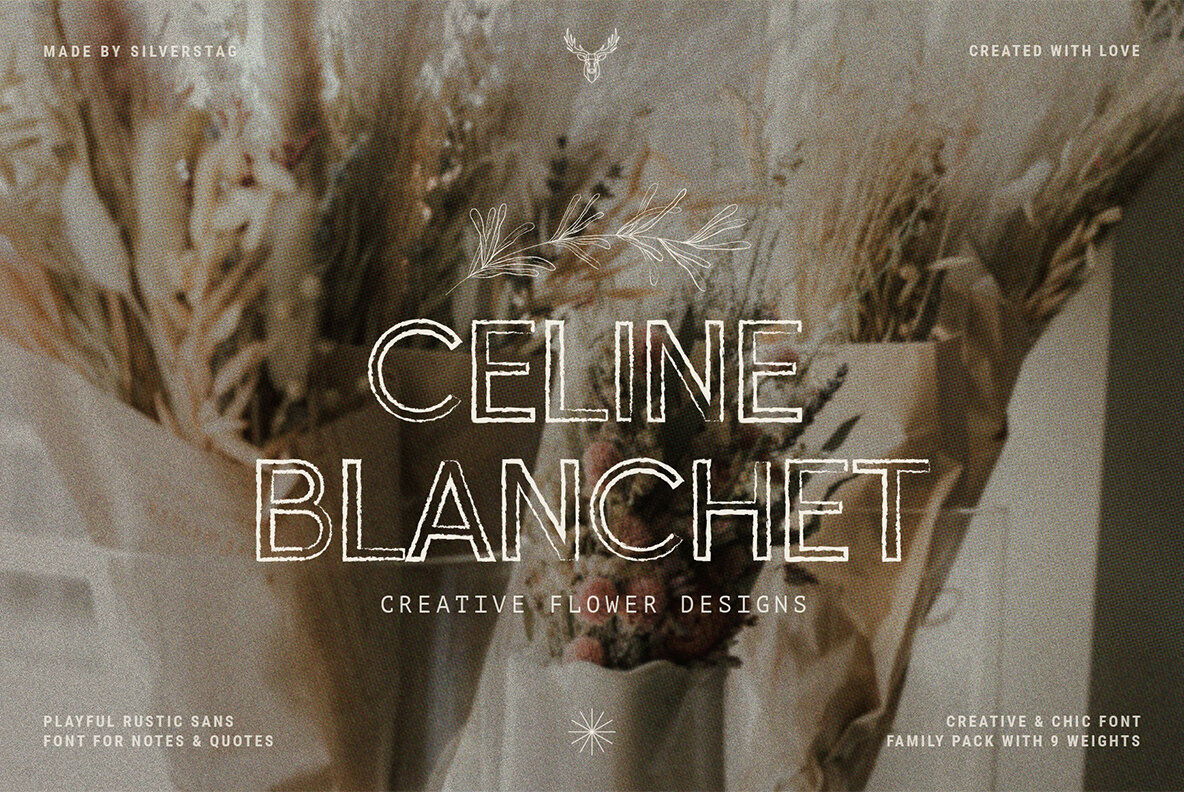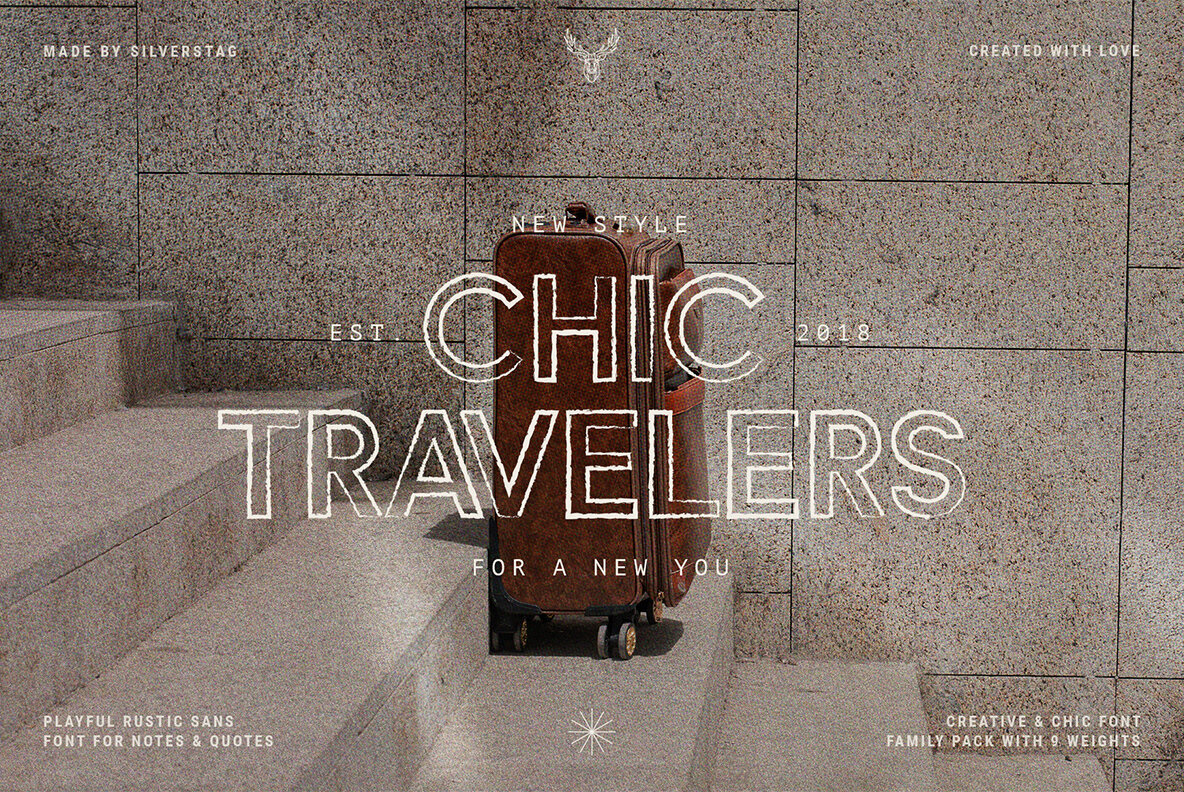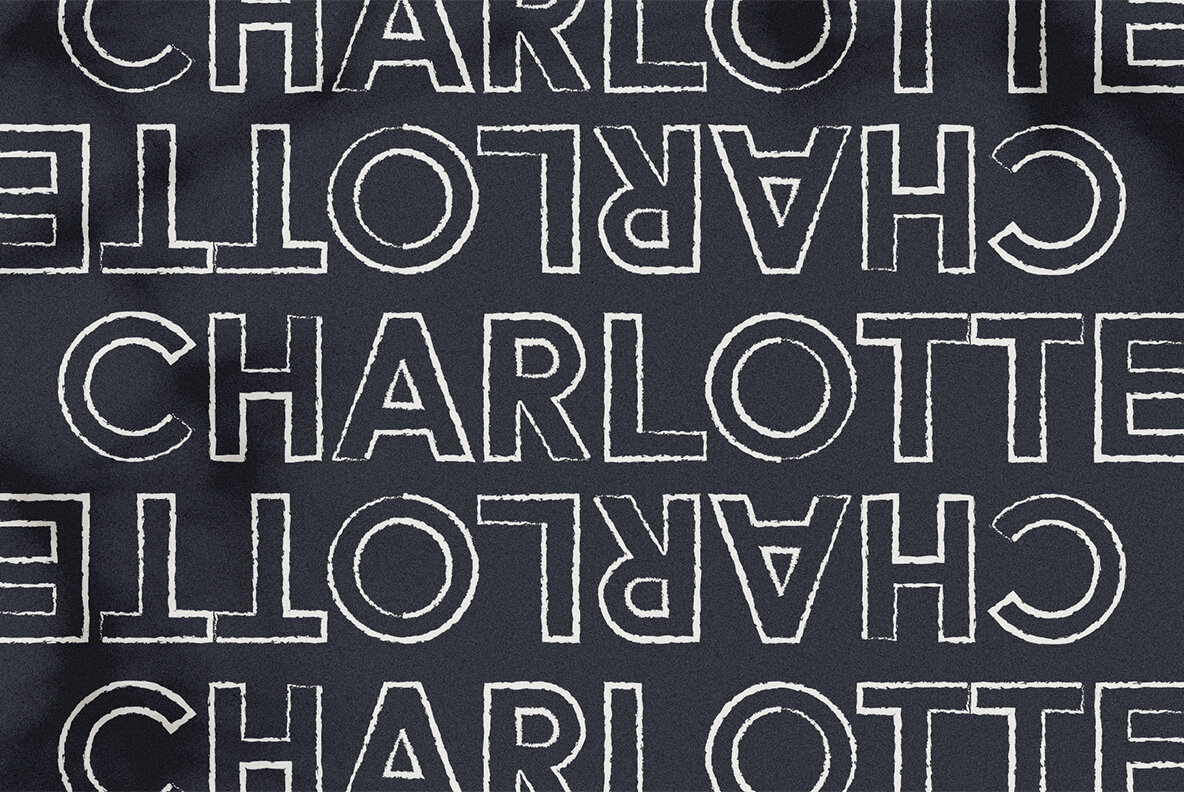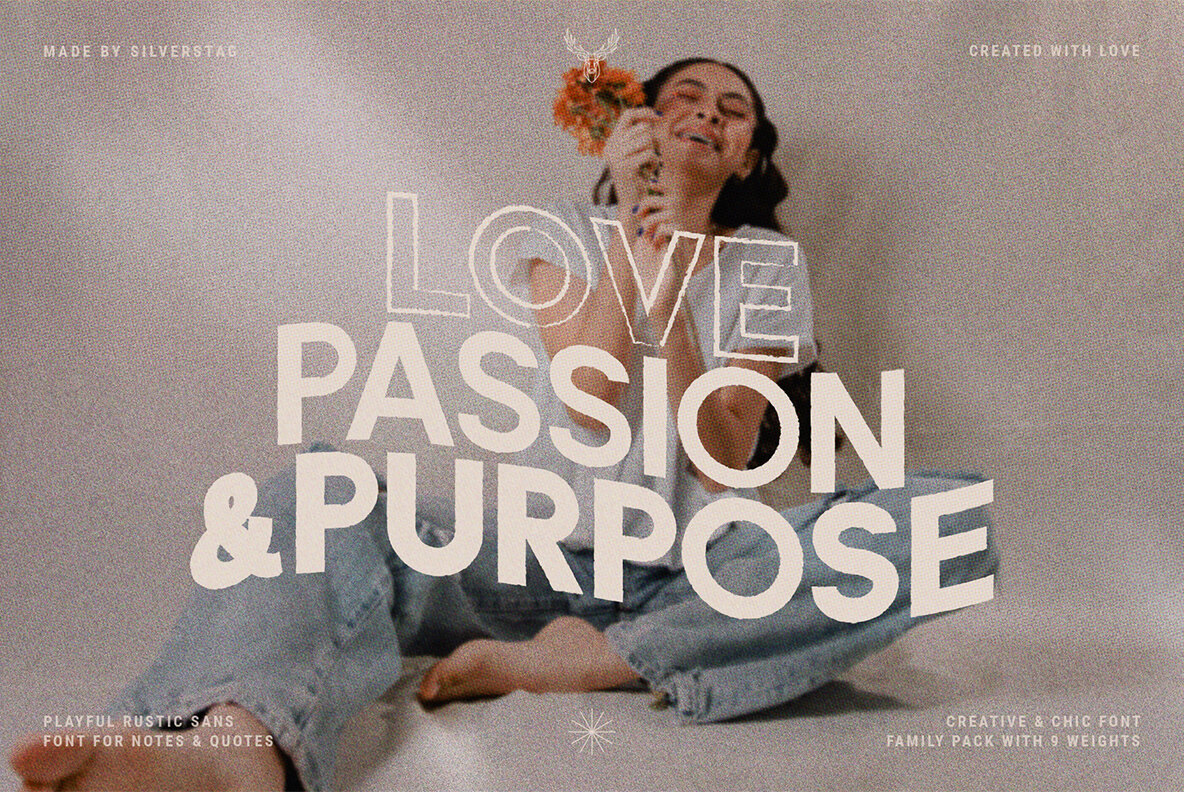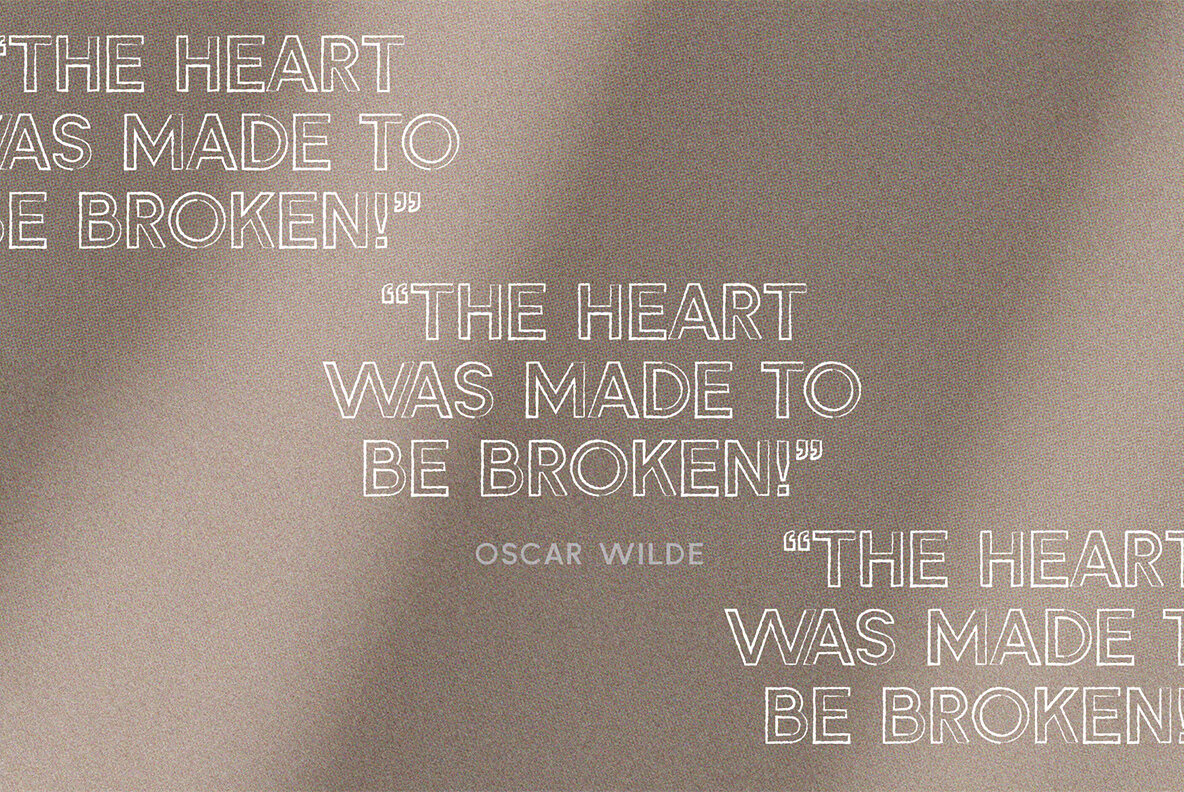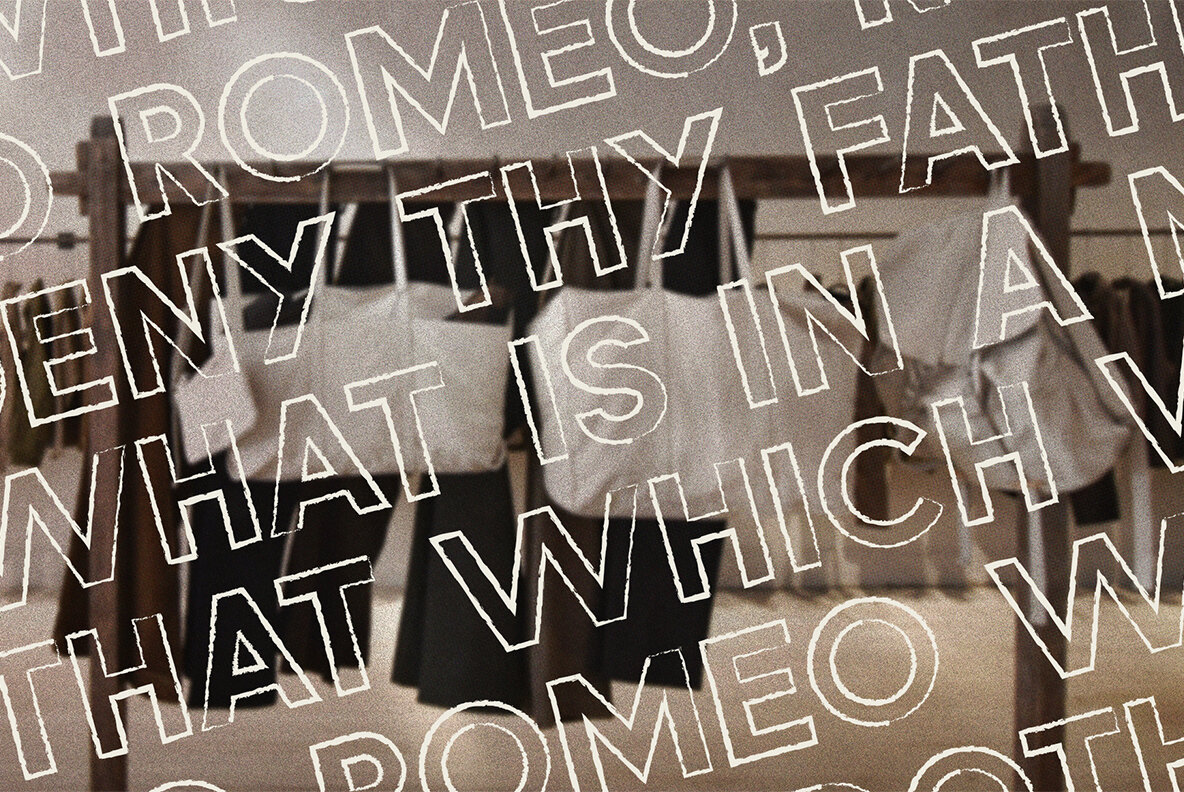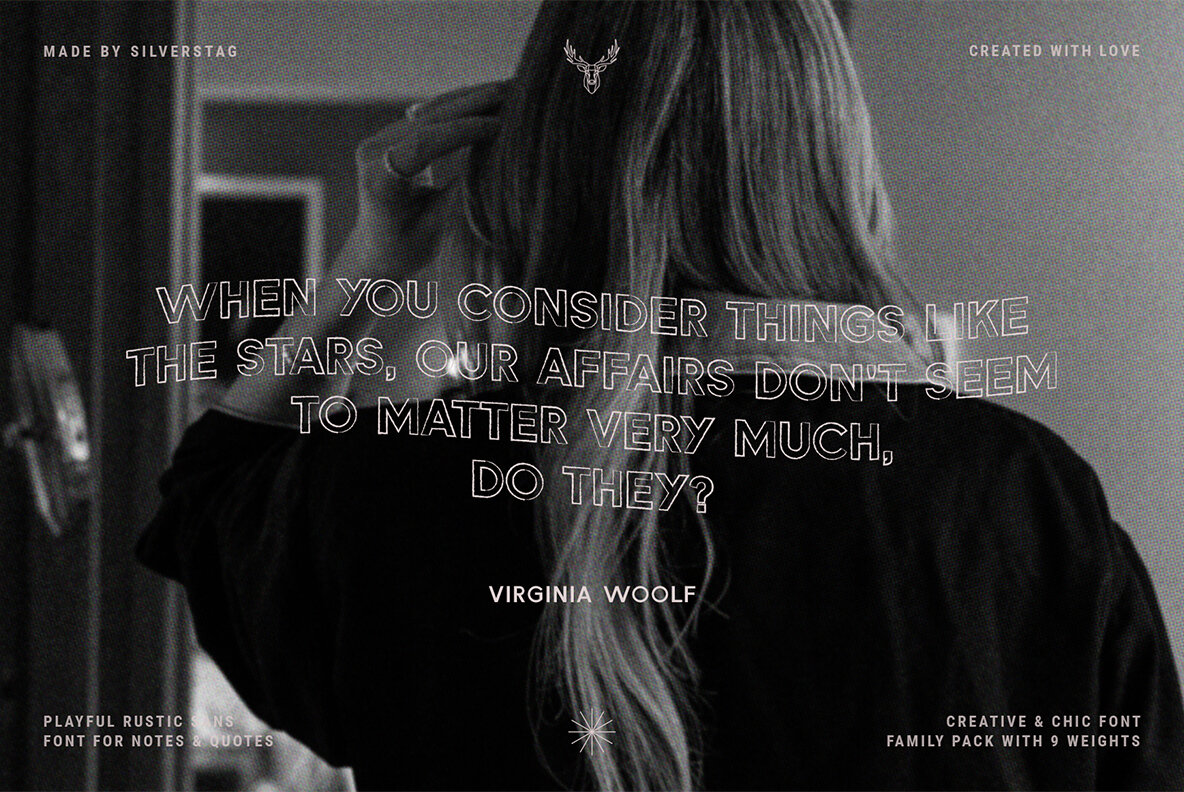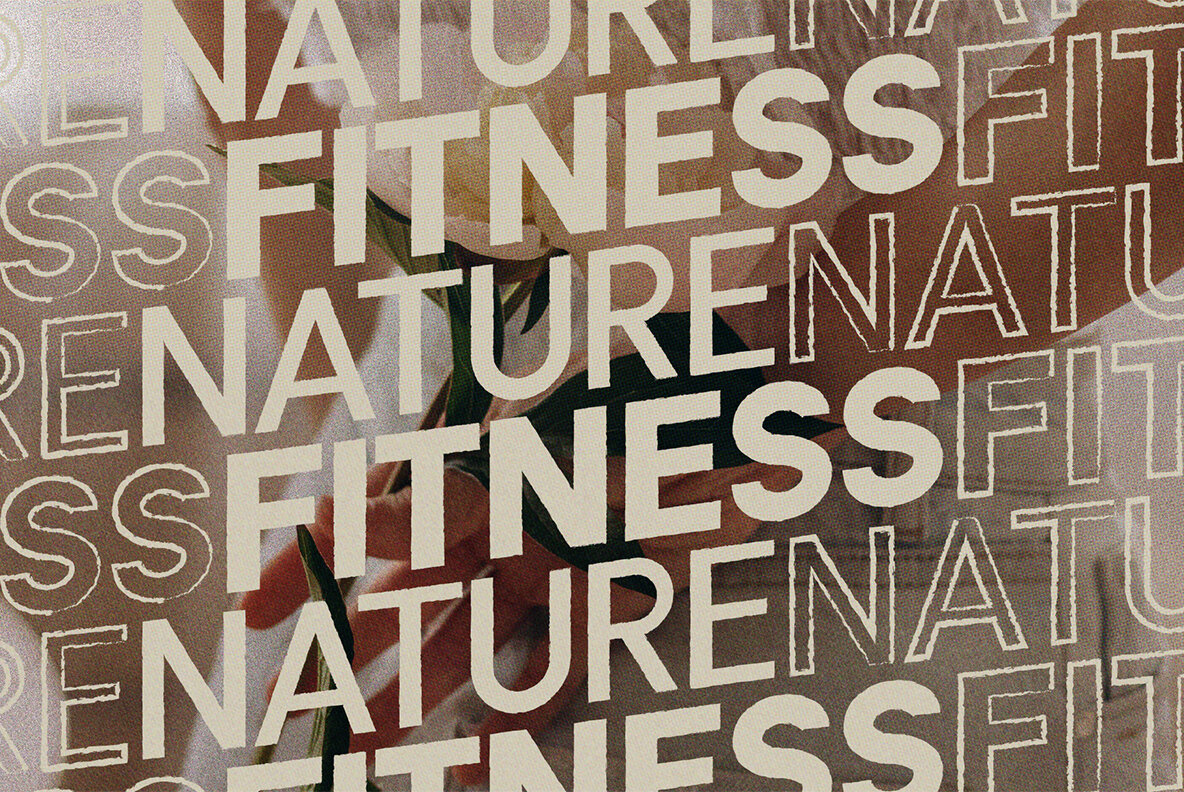
Summer Paradise Font
Rustic Summer Paradise will be a perfect reminder of all the summer adventures you had this year, even when the summer and heat are long gone.
This font pack includes 9 fonts, rustic, solid and solid rustic in light, regular and bold weight. It is perfect for logos, branding, posters, social media & all other creative projects. It also includes full language support, punctuation, numerals.